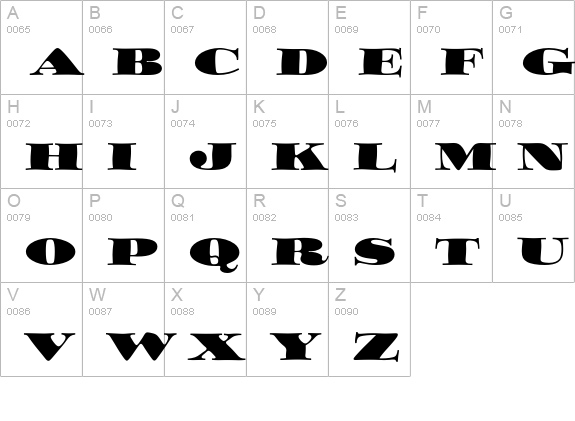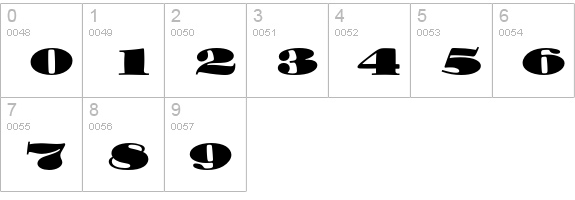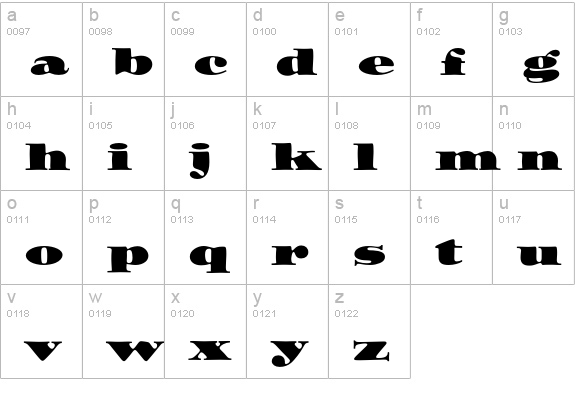
OzwaldICG Font Details
OzwaldICG font is a modern and sleek typeface that exudes sophistication and elegance. With its clean lines and sharp edges, this font is perfect for creating eye-catching designs that demand attention. The geometric shapes of OzwaldICG font give it a unique and contemporary look, making it a versatile choice for a wide range of projects. What makes OzwaldICG font even more appealing is that it is available for free download at FontsMarket.com. This means that you can easily access this stylish font without any cost, allowing you to enhance your creative projects without breaking the bank. Whether you're designing a logo, poster, website, or any other visual content, OzwaldICG font will help you achieve a polished and professional look. So why wait? Download OzwaldICG font today and elevate your designs to the next level.